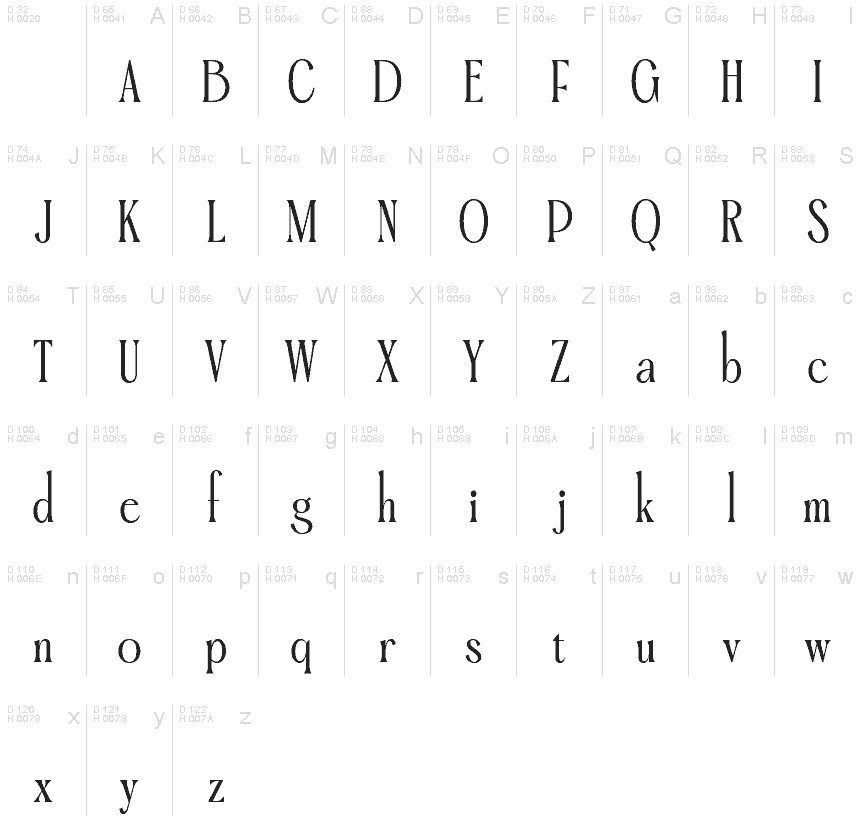
CS Draper Regular Demo
CS Draper font is the perfect serif typeface to bring a sophisticated mood to your designs. This classic font from Craft Supply Co. is defined by its condensed width, subtle softness, and traditional influence that have created it. Its formal appearance is focusing on elegance and legibility for quality reading which makes it suitable for editorial use.
Create timeless branding projects with this free serif font in magazines, newspapers, books, professional stationery design, business cards, letterhead designs and resumes. Digital typography created with Draper can be included in websites too with selected headings or body text!